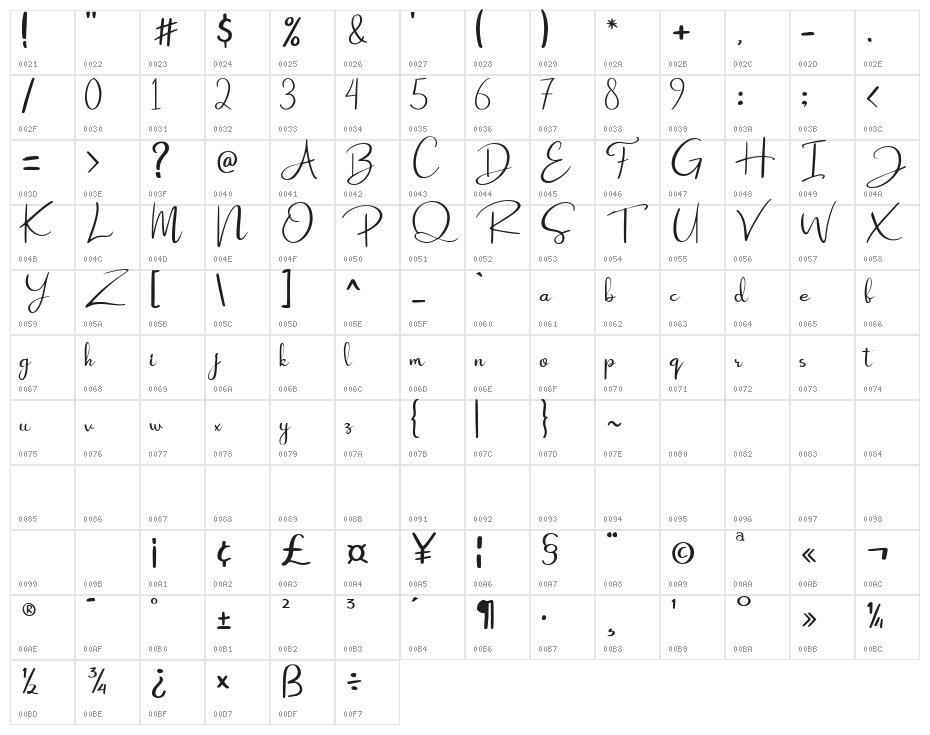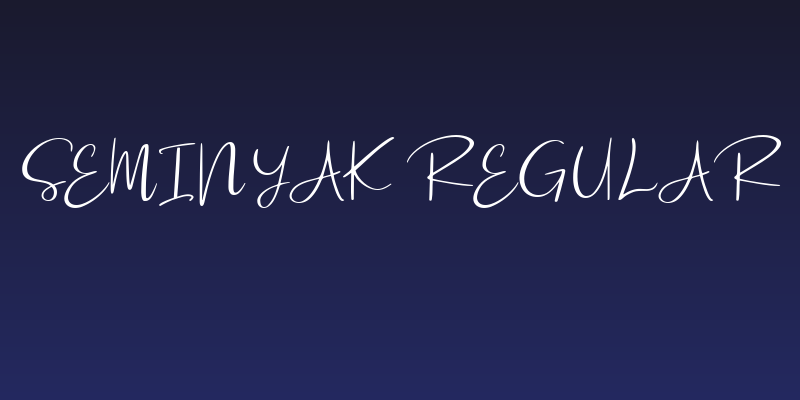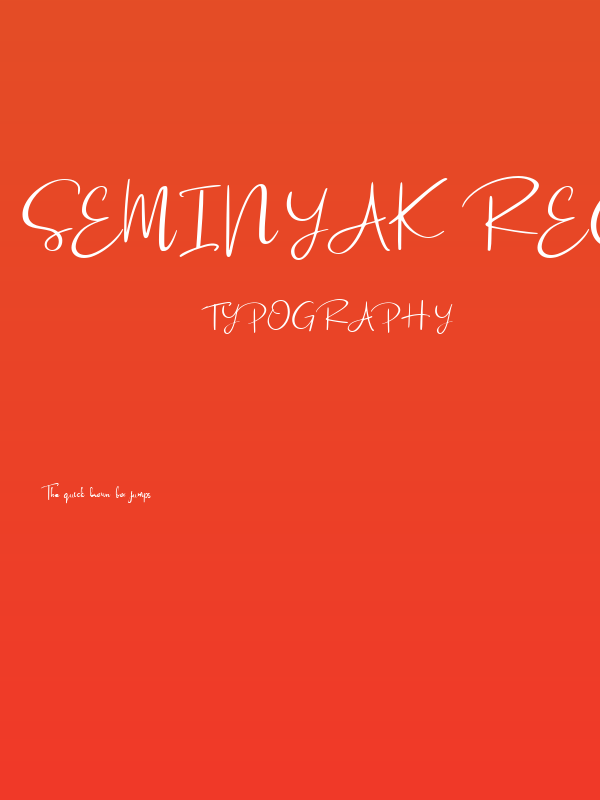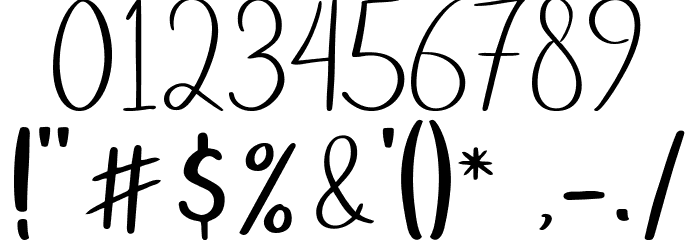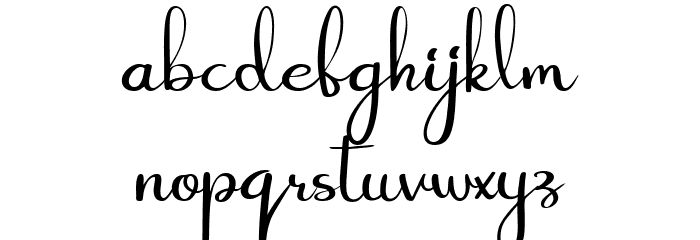
Seminyak Regular Font
Seminyak Regular Description
This font features a playful and elegant script style, characterized by its fluid, handwritten appearance. The uppercase letters are tall and slender, with graceful loops and curves that convey a sense of movement and sophistication. The lowercase letters maintain a consistent flow, with some characters extending slightly below the baseline, adding to the font's dynamic nature. The numerals are well-proportioned, complementing the overall aesthetic with their smooth curves and balanced structure. Special characters are thoughtfully designed to match the font's whimsical yet refined style, making it suitable for a variety of creative applications.
| Overall Style | Elegant, Playful |